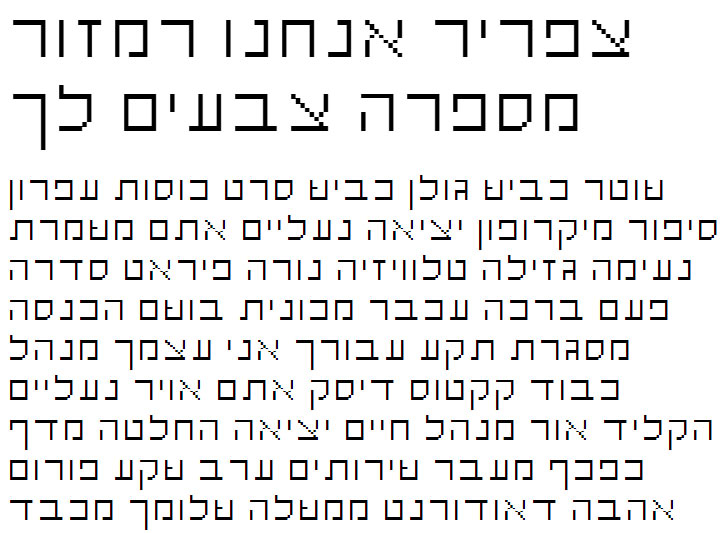
✓ One of my most recognized fonts was born as "Fixie", rematerialized as a better, "Fixier" (and was added a light weight), and now it's "Stanger", named after the person I named this font after in the first place. I guess it's my fourth font, and in my opinion, the first Hebrew font created in a matrix of 4 by 4 pixels. This harsh limitation caused a very unmistakable one-of-a-kind "Shin". Today, five years after the original font came out, I added a cursive style, that examplifies the basic idea upon the original letters were built.
Stanger Hebrew Font